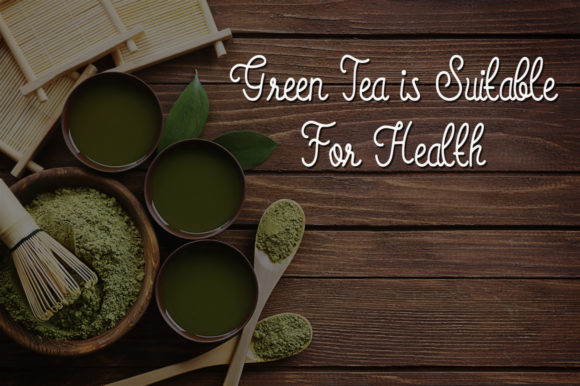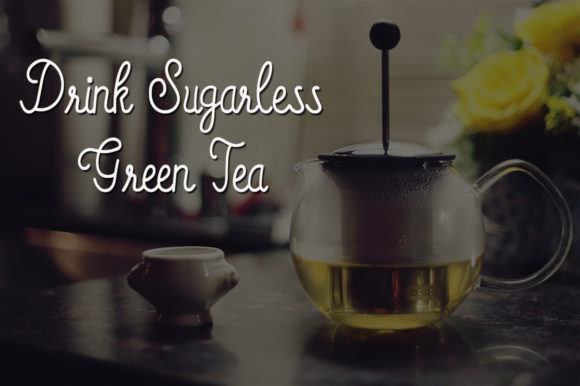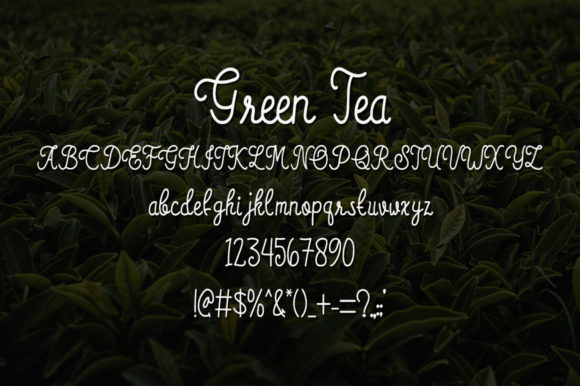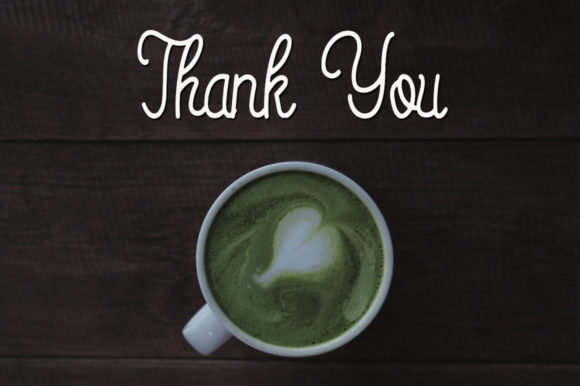
Green Tea Font
About Green Tea Font
Green Tea is a font that exudes style and incredible elegance, making it a perfect choice for a wide variety of design projects. Its stunning beauty enhances various creations, adding a touch of handwritten allure that captivates the eye.
For wedding invitations, Green Tea shines brightly. Its stylish and elegant appearance sets the perfect tone for a sophisticated celebration, leaving a lasting impression on recipients.
Thank you cards become heartfelt expressions with Green Tea. Its handwritten essence conveys sincerity and warmth, making your messages feel personal and genuine.
When it comes to quotes and greeting cards, Green Tea becomes a powerful tool. Its stylish script and flowing characters give your messages an artistic flair, making them stand out beautifully.
For logos and business cards, Green Tea elevates your brand to new heights. Its captivating handwriting reflects creativity and professionalism, making your brand memorable and distinguished.
Any design that calls for a handwritten touch finds perfection in Green Tea. From personalized stationery to social media graphics, the font adds a touch of elegance and allure that resonates with authenticity.
Incorporating Green Tea into your designs allows you to create stunning and eye-catching pieces. Its style and elegance inspire your creativity, making your most imaginative ideas come to life.
In summary, Green Tea is more than just a font; it’s a stylish and incredibly elegant companion that enhances your designs. Embrace its beauty and notice how it transforms wedding invitations, thank you cards, quotes, greeting cards, logos, business cards, and every other project with a mesmerizing handwritten touch. Let Green Tea be the font that elevates your creative endeavors, turning them into outstanding works of art that resonate with grace and allure. With Green Tea, your designs become true expressions of beauty and sophistication, leaving a lasting impact on all who encounter them.